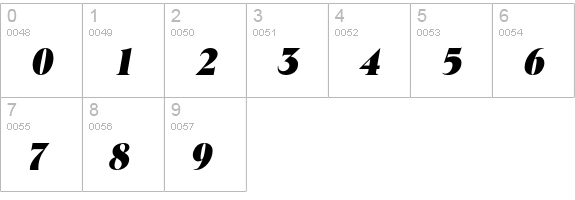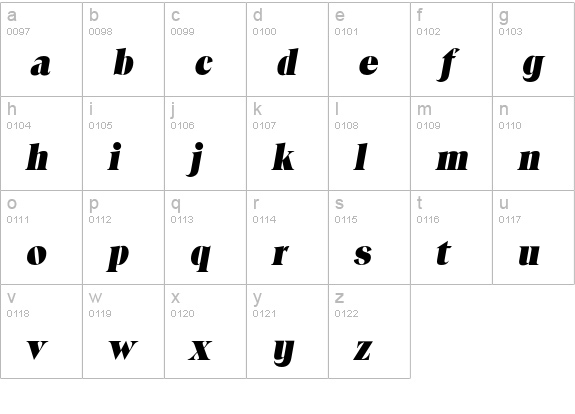
Toledo-ExtBldItl font is a bold and expressive typeface that exudes strength and confidence. With its extended and italicized letterforms, this font commands attention and adds a touch of sophistication to any design project. The Toledo-ExtBldItl font is perfect for headlines, logos, and branding materials that require a bold and impactful look. Its strong and slanted strokes give it a unique and dynamic appearance, making it ideal for conveying a sense of movement and energy. But what sets the Toledo-ExtBldItl font apart is not just its striking design, but also its accessibility. It is freely available to download at FontsMarket.com, making it accessible to both professional designers and enthusiasts alike. Whether you're working on a personal project or a commercial venture, you can use this font without any restrictions or limitations. The Toledo-ExtBldItl font is designed with versatility in mind, allowing you to use it across various platforms and applications. It is compatible with both print and digital media, ensuring that your designs will look stunning regardless of the medium. With its bold and italicized style, the Toledo-ExtBldItl font is sure to make a lasting impression. Its distinct and powerful aesthetic will elevate your designs and captivate your audience. So why wait? Download the Toledo-ExtBldItl font for free at FontsMarket.com and unleash your creativity today.